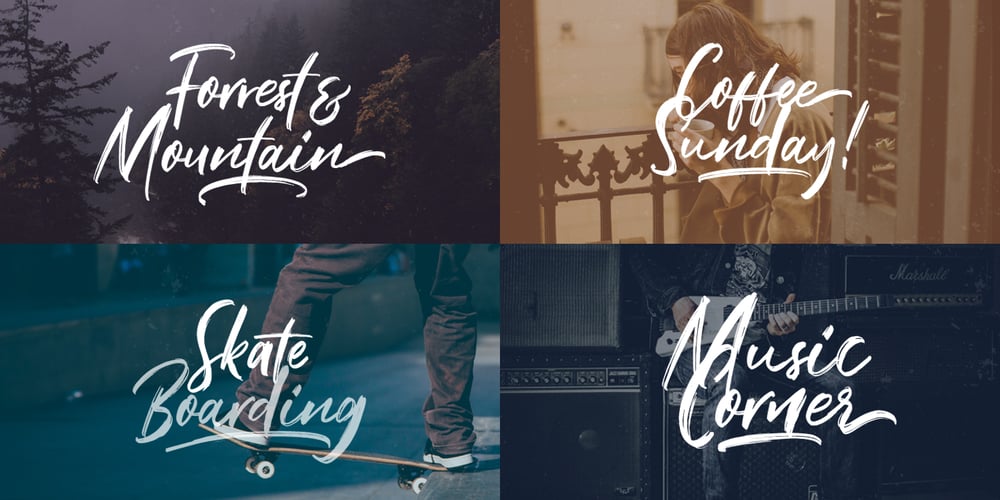
Black Mountage Font Family was designed by Sarid Ezra and published by Sarid Ezra. Black Mountage contains 2 styles and family package options. Black Mountage is brush font that contain stylistic alternate, swash, etc to create your own customized signature, quotes, and also great for apparel. This font is support multi language. Also Support PUA.